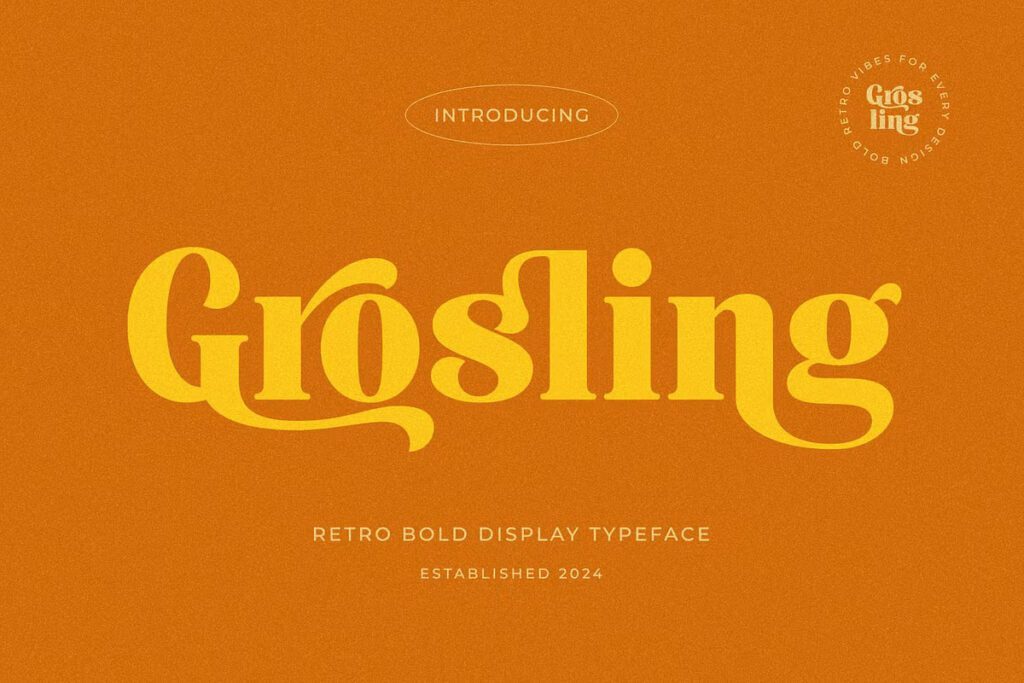
Grosling Retro Bold Serif Font: A Stylish Choice for Elegant Branding
If you’re on the lookout for a unique and modern serif font that adds a touch of elegance to your design projects, Grosling is the perfect choice. With its retro-inspired bold serif style, Grosling makes a statement in everything from branding to product packaging. Whether you’re working on a logo, invitations, or editorial design, this font brings sophistication and boldness to your work.
Why Choose Grosling?
Grosling’s blend of modern and retro styles makes it an incredibly versatile typeface. It’s designed to stand out, yet remains elegant, making it suitable for a wide range of design applications. Whether you need a stylish font for branding, logos, or product packaging, Grosling delivers just the right balance of boldness and grace.
Key Features of Grosling:
Retro-Inspired Bold Serif Design: A unique look that combines modern elegance with vintage flair.
Versatility: Ideal for various design projects such as branding, magazines, invitations, and product packaging.
Elegant Style: Adds a touch of class and sophistication to any design project.
Best Uses for Grosling:
Branding and Logos: Create memorable and sophisticated logos that make a strong impression.
Magazines and Editorials: Perfect for headlines or feature sections that require bold, elegant typography.
Invitations and Event Materials: Bring a touch of style and retro charm to invitations and event branding.
Product Packaging: Stand out on the shelves with bold, attention-grabbing typography.